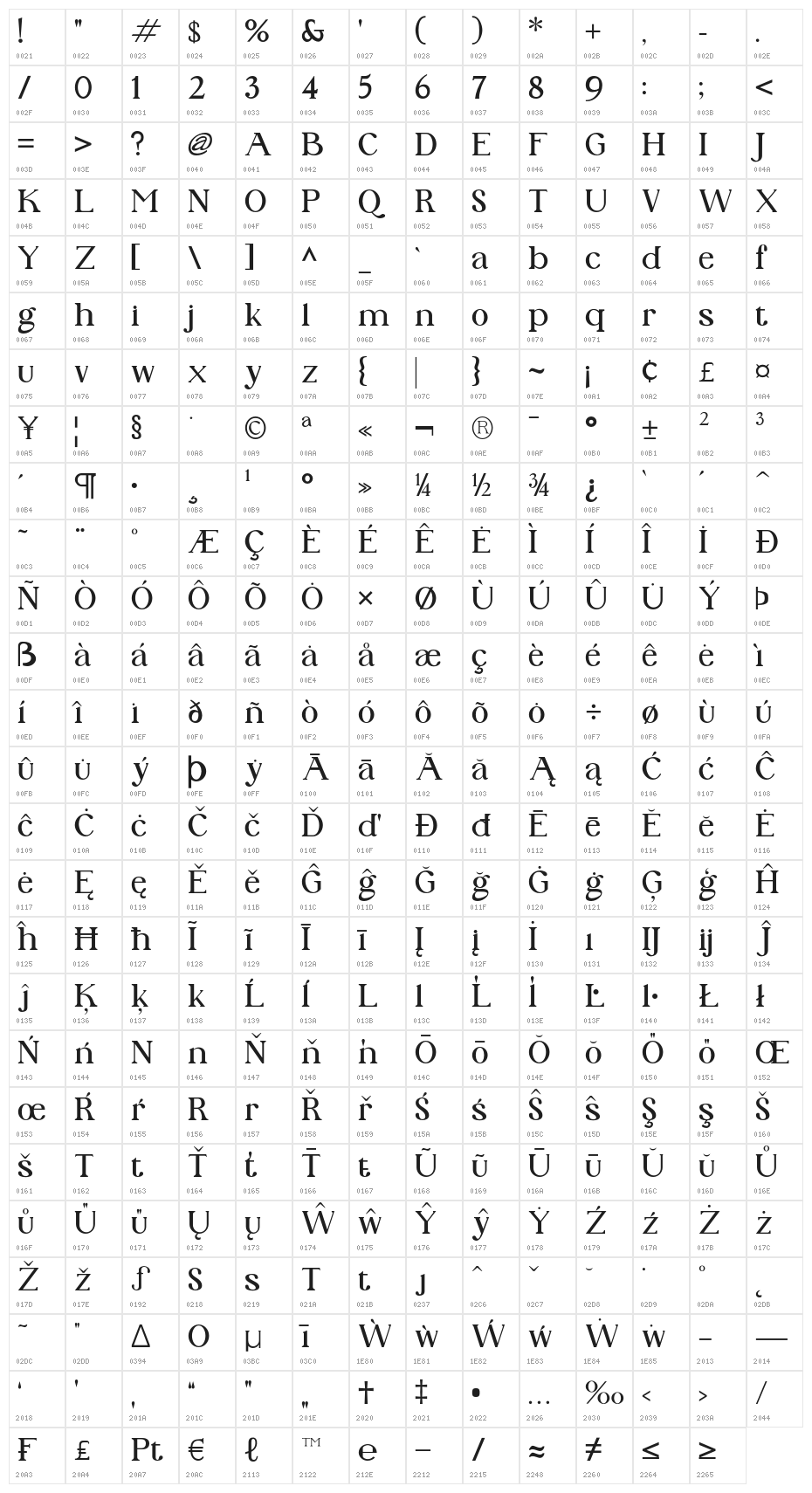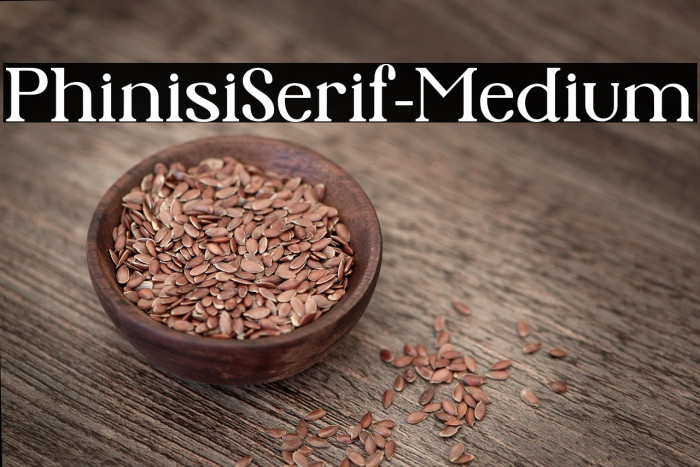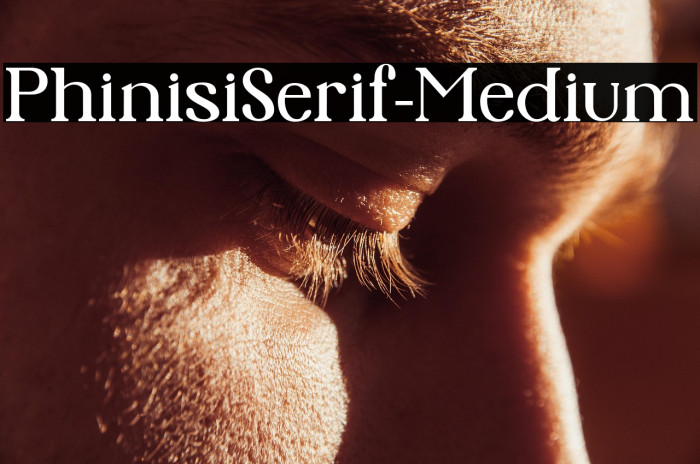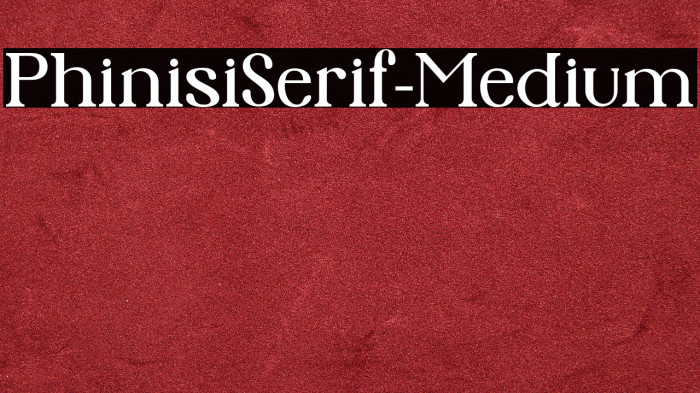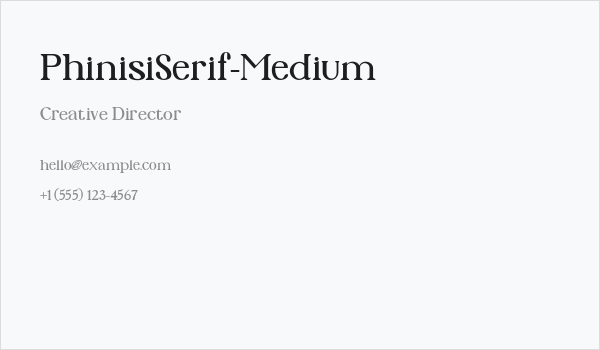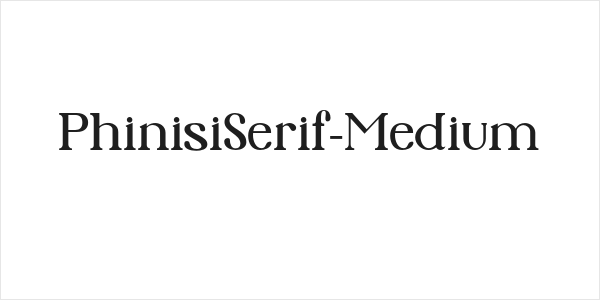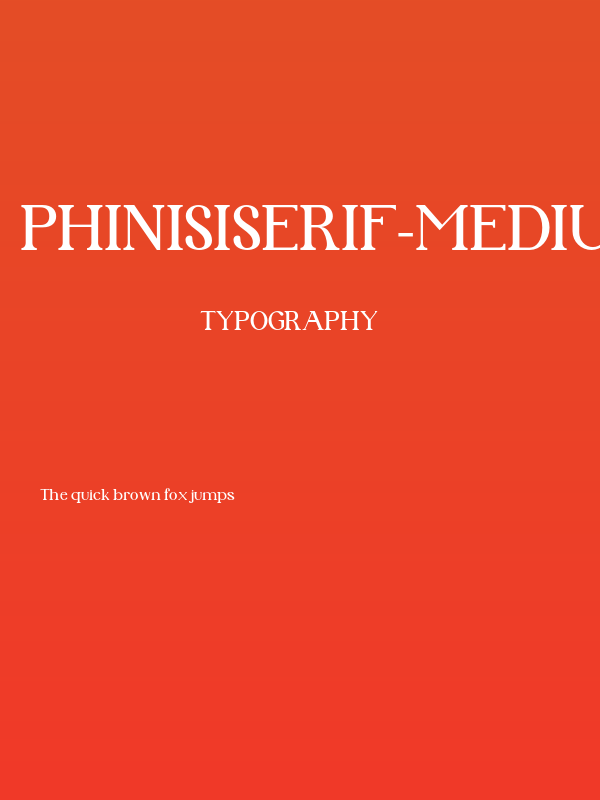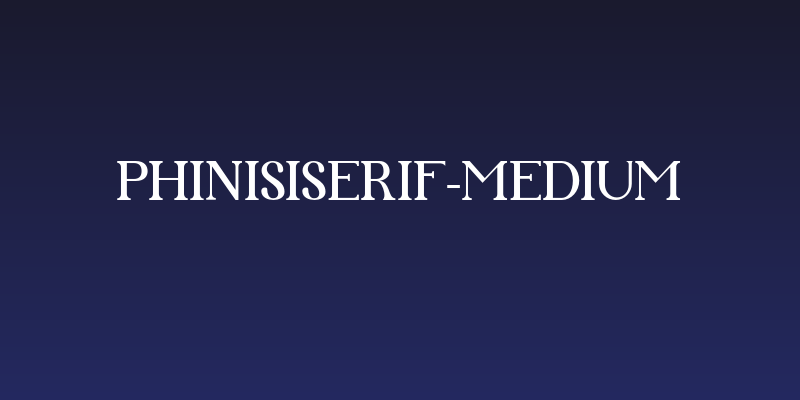
PhinisiSerif-Medium Font
PhinisiSerif-Medium Description
This serif font exudes a classic elegance with its refined and sophisticated appearance. The characters are well-proportioned, featuring subtle serifs that add a touch of tradition and formality. The uppercase letters are bold and commanding, while the lowercase letters maintain a graceful flow. The numerals are clear and distinct, ensuring readability. Special characters are thoughtfully designed, complementing the overall aesthetic. This font is versatile, suitable for both digital and print media, and can enhance the visual appeal of any project with its timeless charm.